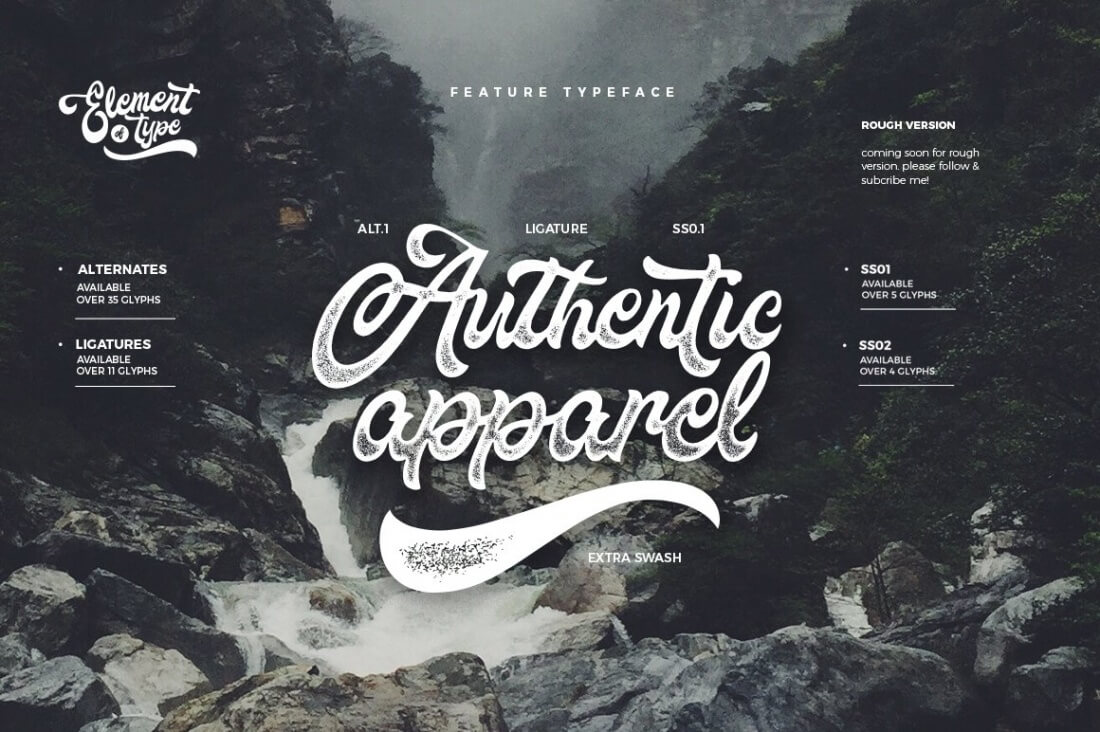
Fountain is a bold, script typeface just bursting with character. Featuring both Regular and Rough styles, you can mix and match the OpenType features to create the perfect design for your latest project whether that's branding for a T-shirt or package or a feature article headline.
Highlights:
- Bold, script typeface.
- Loads of OpenType features - ligatures, stylistic alternates and swashes.
- Two styles - Regular and Rough.
- Multilingual support.
- Great choice for logos, packaging, posters, apparel, greeting cards, headlines and so much more.